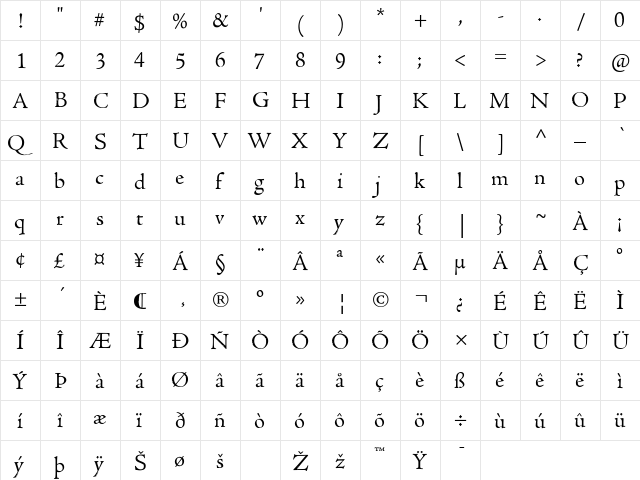
Nicolas Regular
Design Context for Nicolas Typeface
Nicolas takes a measured approach to typography — its balanced proportions and neutral character make it a reliable workhorse for both digital and print work.
Pro Tip: Pair Nicolas with a font of contrasting weight or personality to build a more expressive typographic hierarchy.